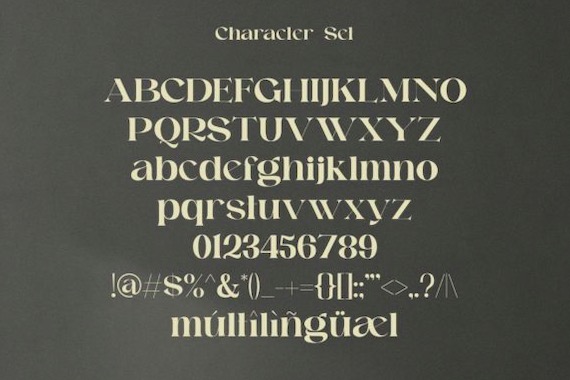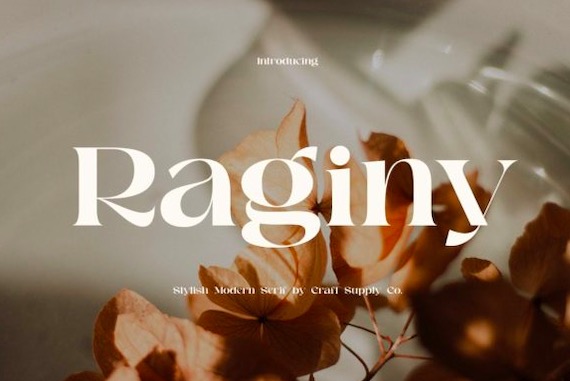
Raginy Font is a high-contrast elegant modern serif typeface that is very perfect for creating almost all types of designs. You can use it on greeting cards, package design, brand identity, DIY crafts, book titles, wedding invitations, vintage and retro designs, or any design project that needs a pretty and trendy-looking font. Just use your imagination, and your project will look better than ever with this typeface.
Raginy Serif Font